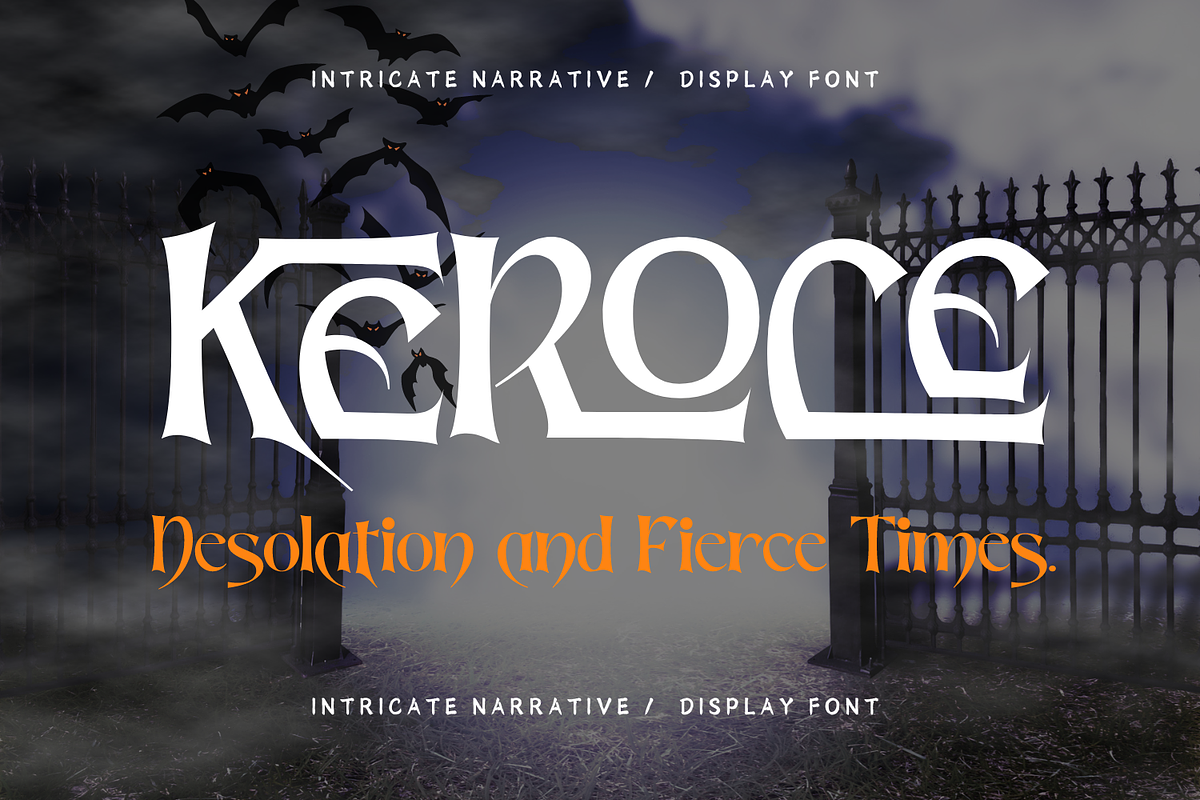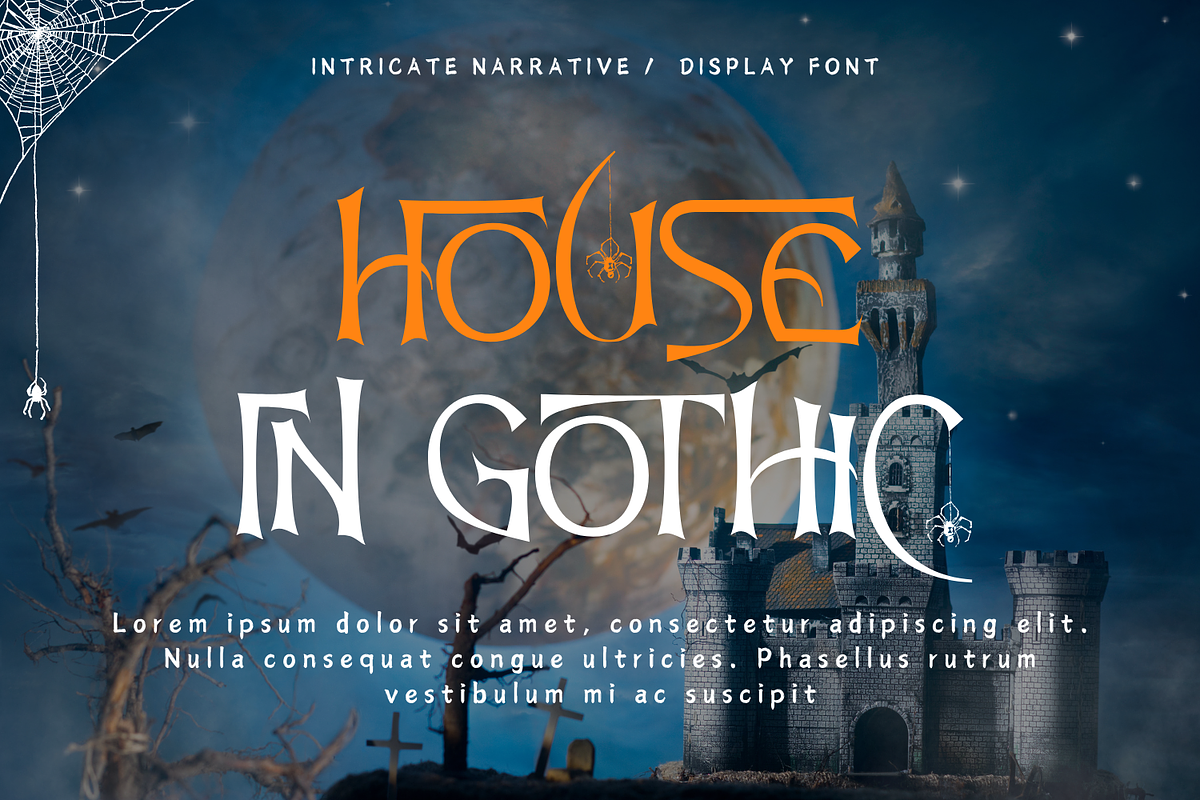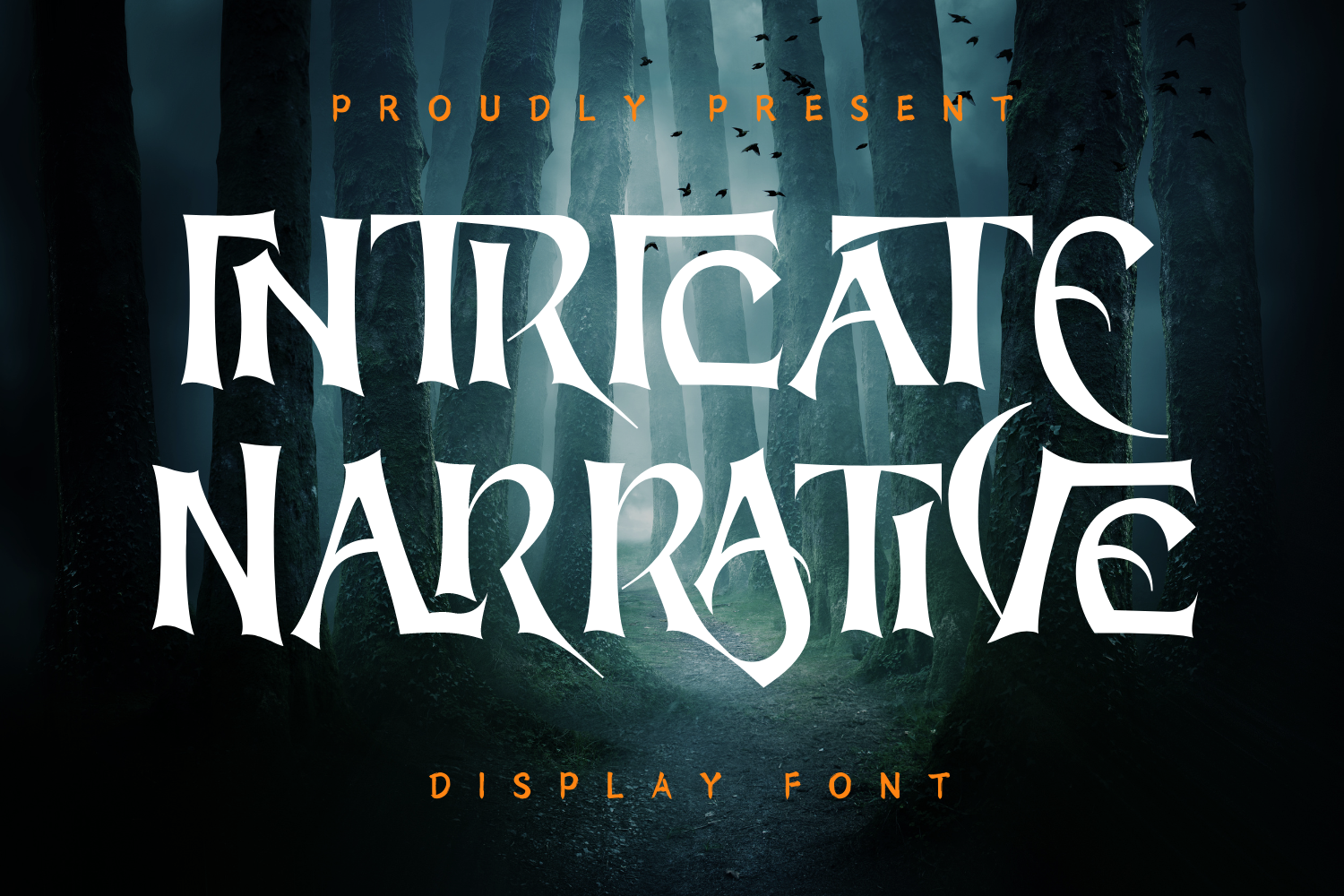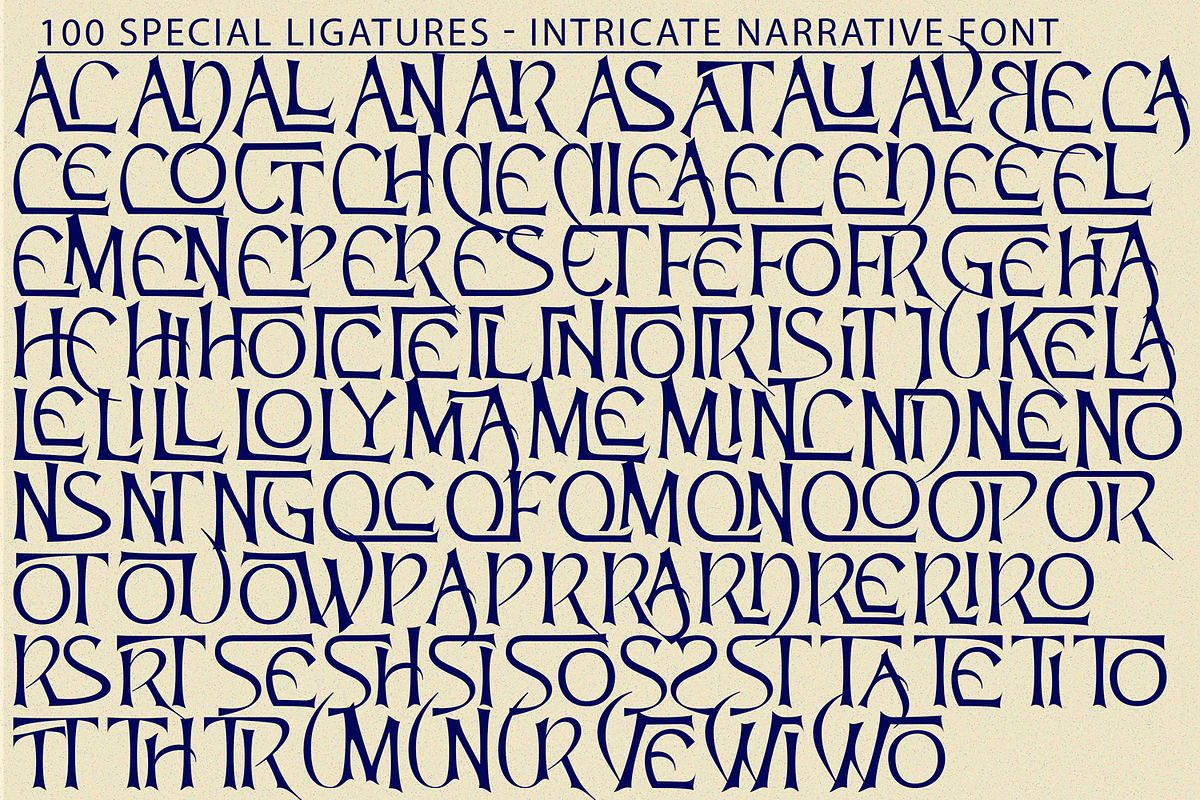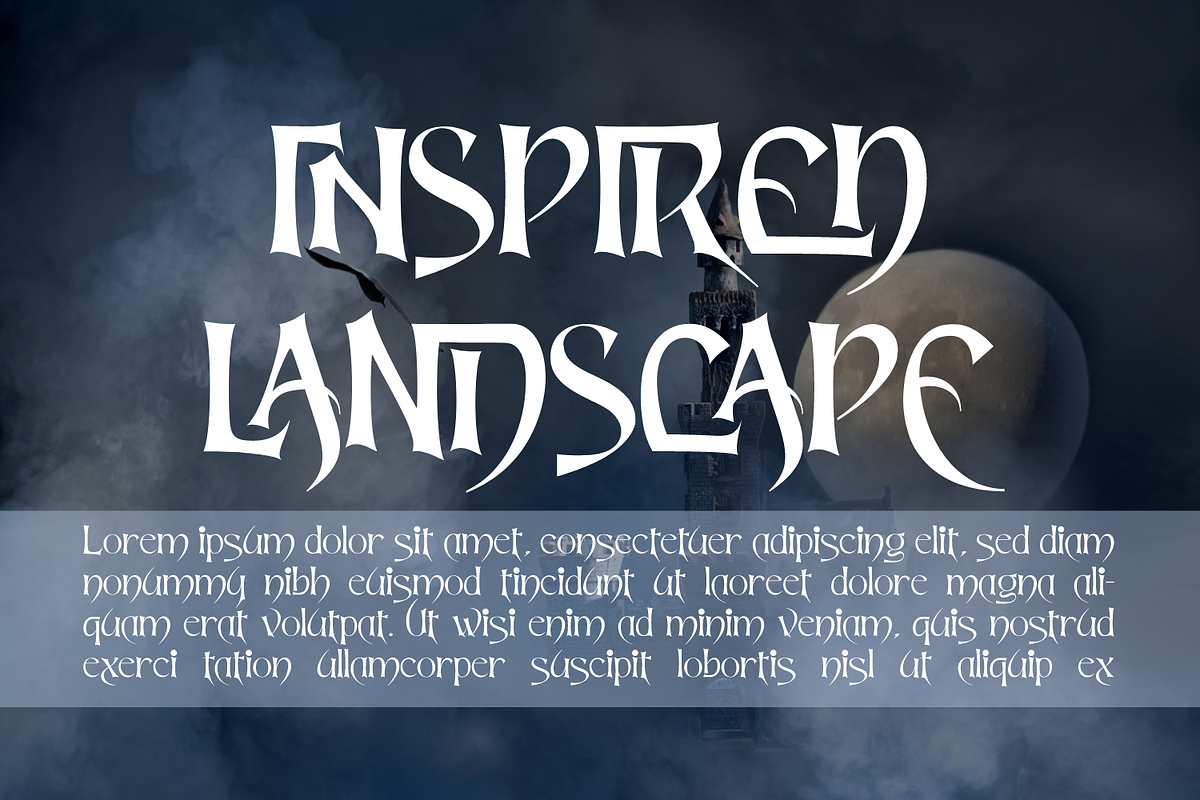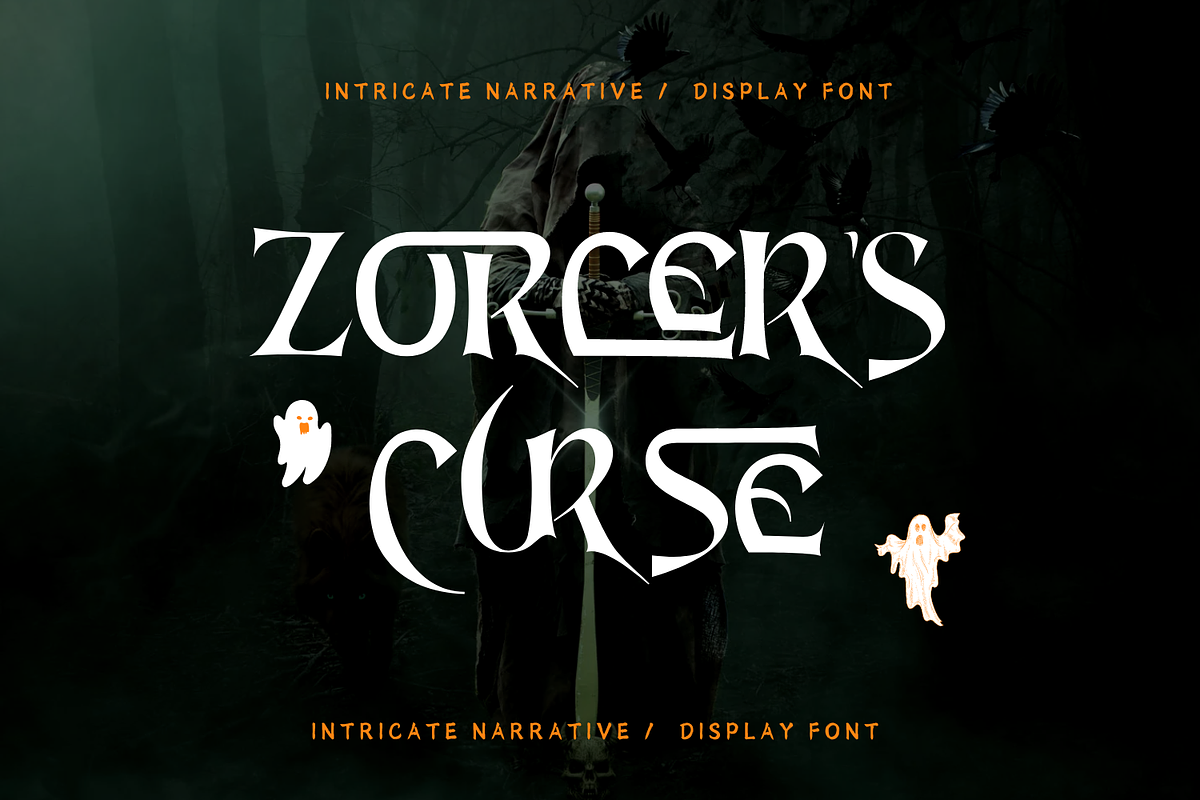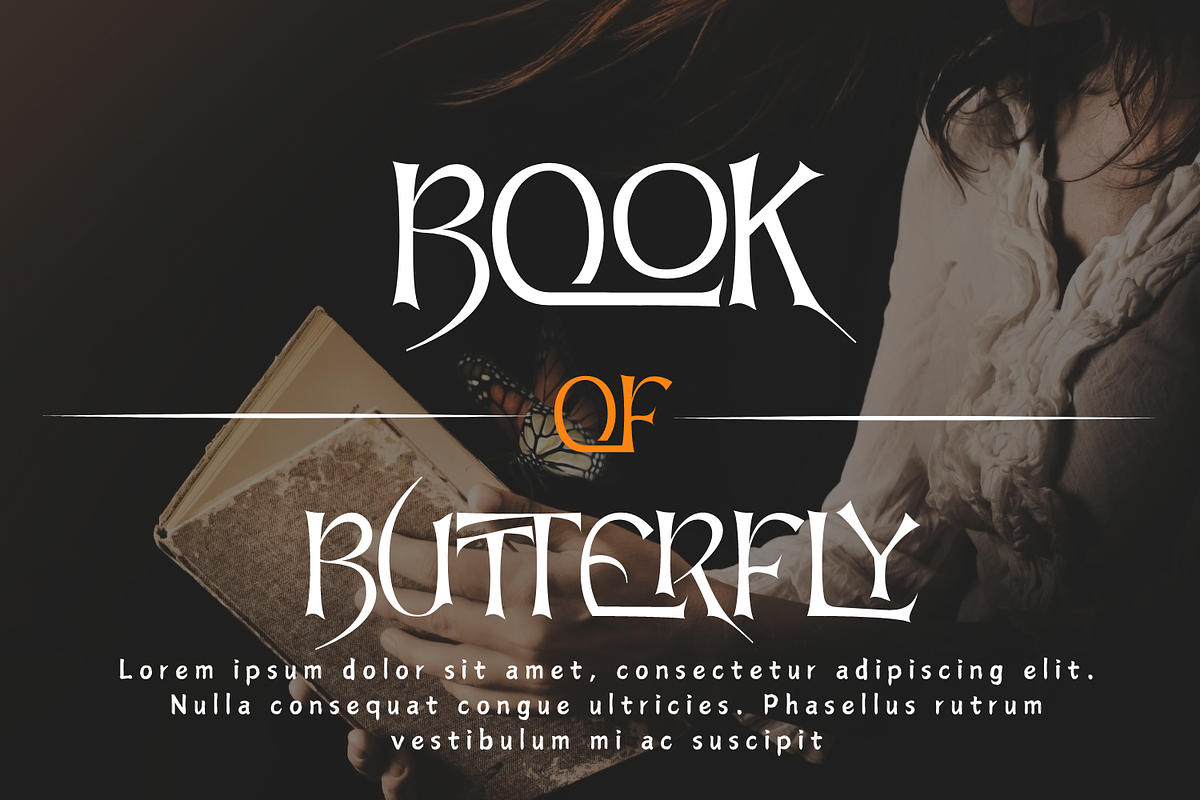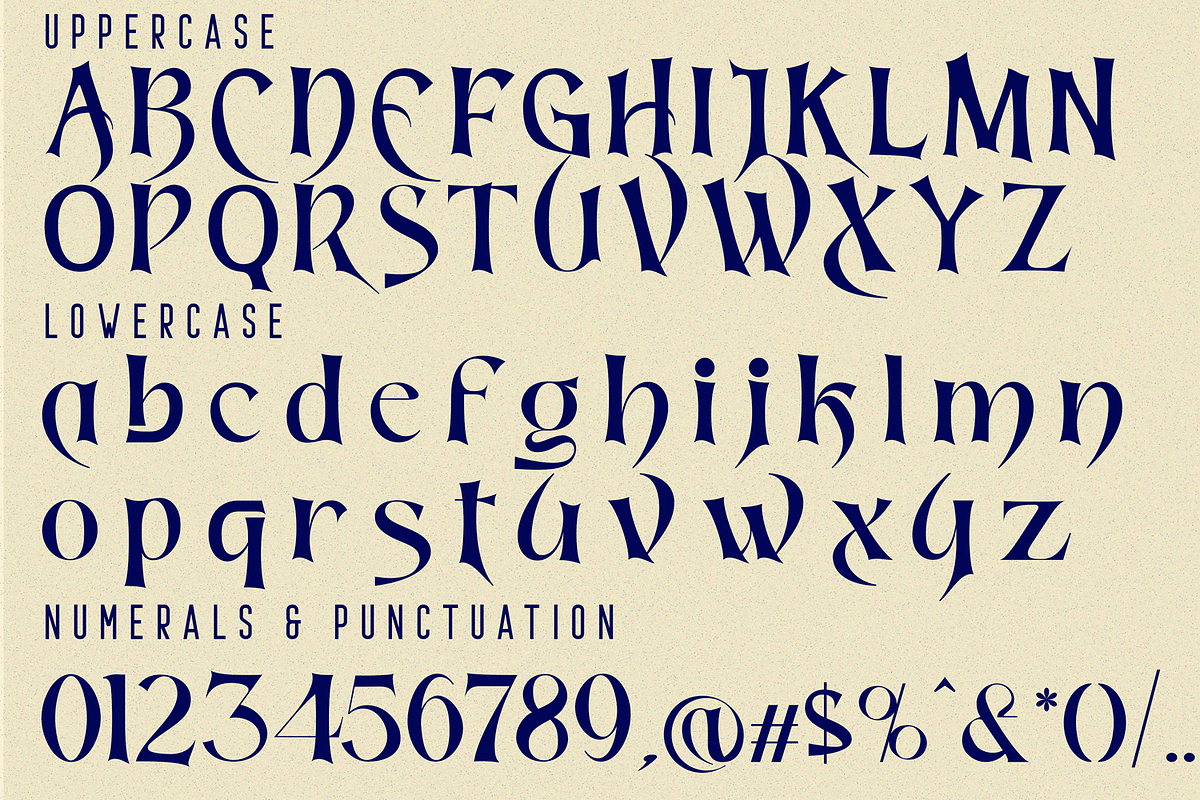
INTRICATE NARRATIVE FONT
INTRICATE NARRATIVE FONT - Classic Adventure Fantasy Pirate Game Font, a serif logo font with unique ligatures! The stylised capitals add romantic curves and a rebellious elegance to the strong standard character set. It's a bold choice of typography for logo designs, product packaging, album artwork, quotes, posters, apparel & more.
INTRICATE NARRATIVE was built with OpenType features and includes 100 ligatures, alternate, numbers, punctuation, and it also supports other languages.
AC AD AL AN AR AS AT AU AV BE CA CE CH CO CT DE DI EA EC ED EE EL EM EN EP ER ES ET FE FO FR GE HA HE HI HO IE IC IL IN IO IR IS IT JU KE LA LE LI LL LO LY MA ME MI NC ND NE NG NO NT NS OC OF OM ON OO OP OR OT OU OW PA PR RA RD RE RI RO RS RT SE SH SI SO SS ST TA TE TH TI TO TR TT UM UN UR VE WI WO
- Special Ligatures